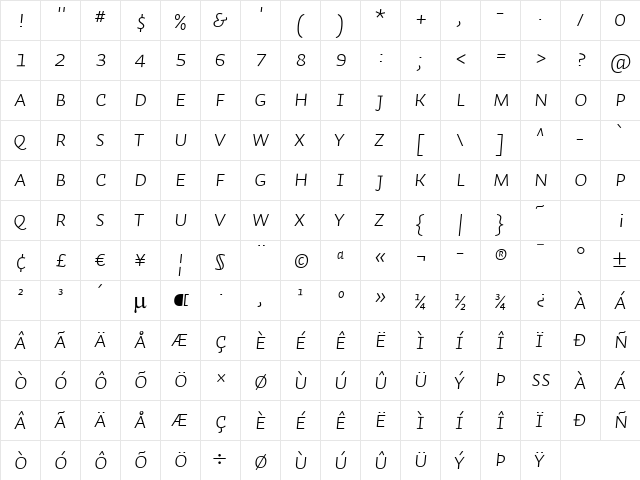
Auto 2 Light Italic SmCp Font Preview
Design Context for Auto 2 Typeface
Auto 2 takes a measured approach to typography — its balanced proportions and neutral character make it a reliable workhorse for both digital and print work. Its italic angle brings a sense of urgency and motion to the letterforms. Its slender proportions lend an understated elegance to any composition.
Pro Tip: Try Auto 2 for annotation and caption copy alongside an upright companion — the contrast in angle creates a dynamic but ordered typographic system.